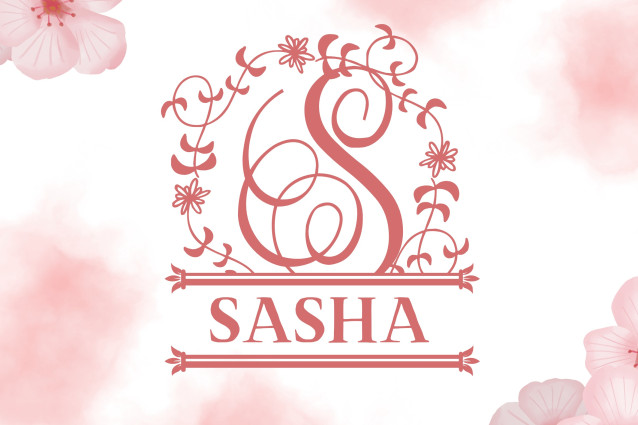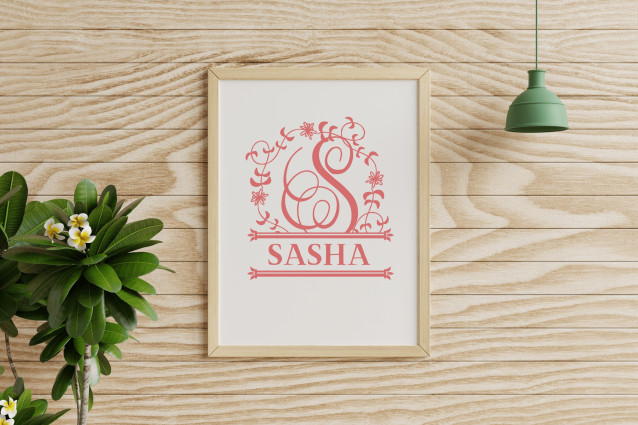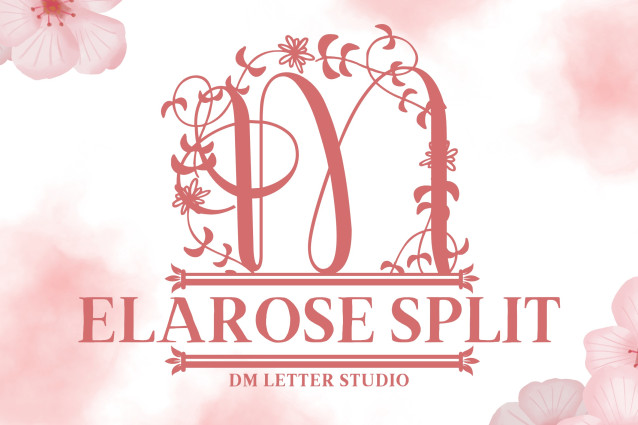
Elarose Split Font
Elarose Split Font is a graceful serif split monogram font designed for personalization. Each uppercase letter features a clean horizontal divide—perfect for adding names or custom text—paired with soft, hand-drawn rose and botanical illustrations. It’s a lovely choice for weddings, Cricut crafts, romantic branding, and floral-themed designs.